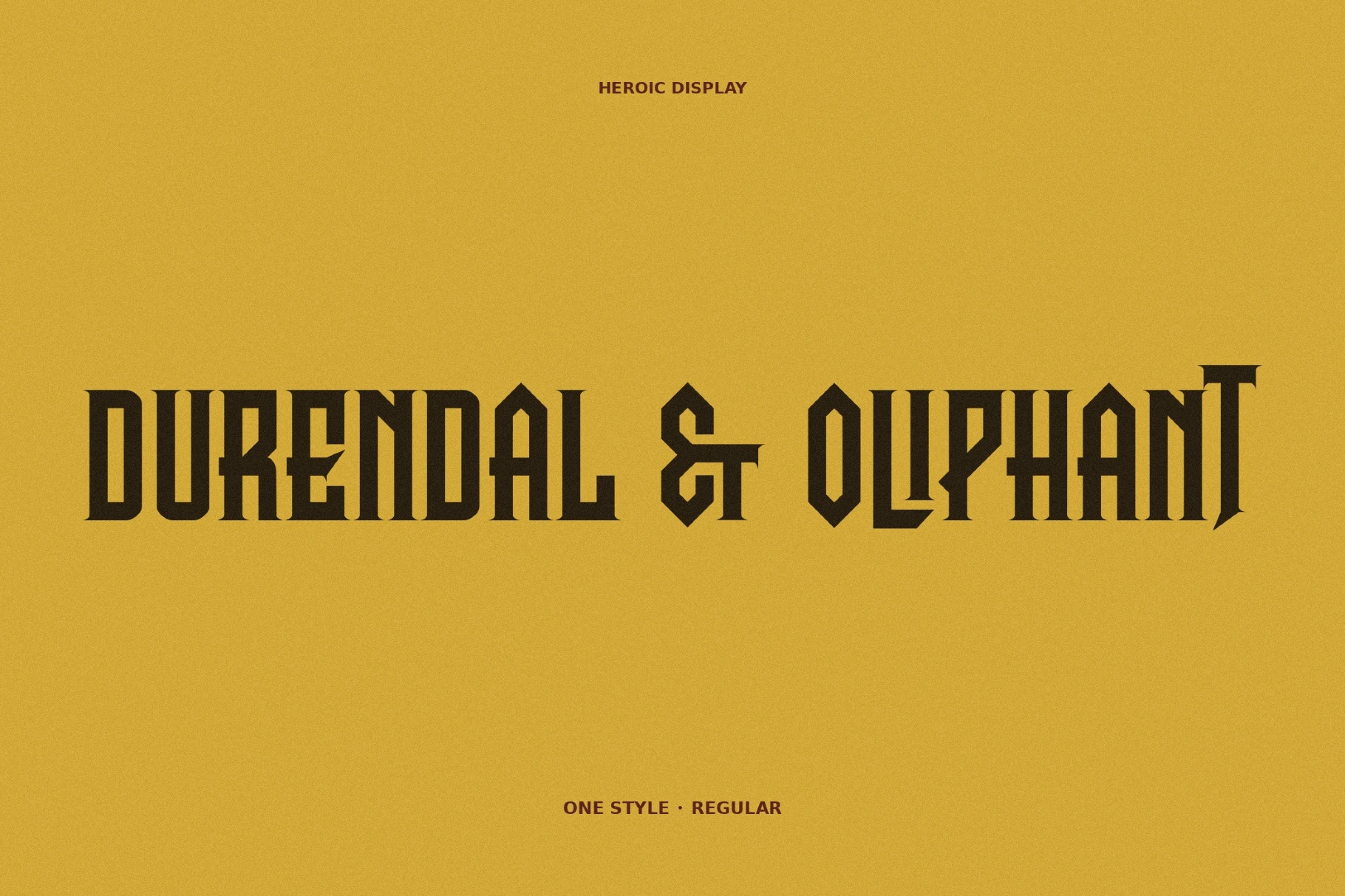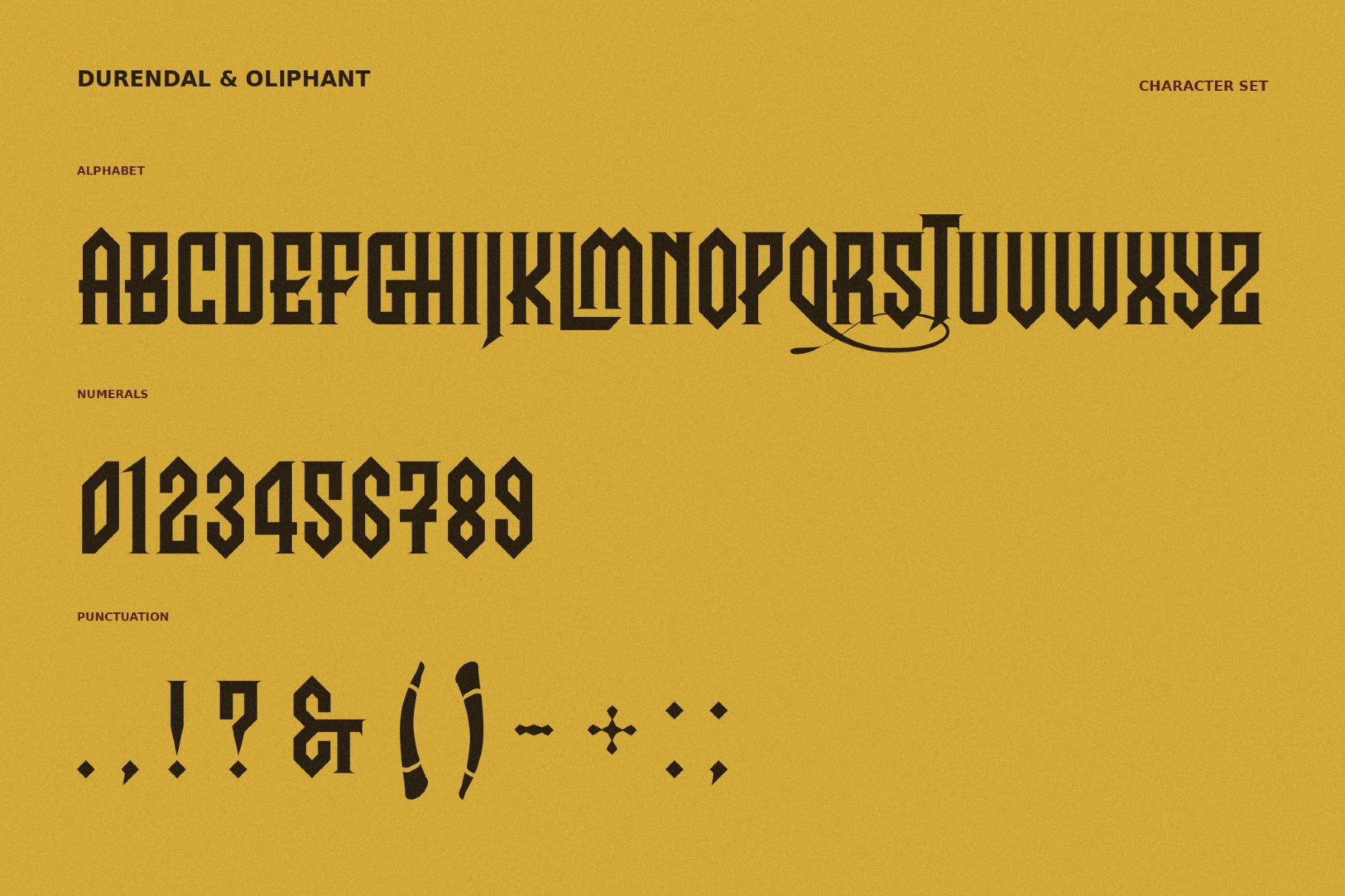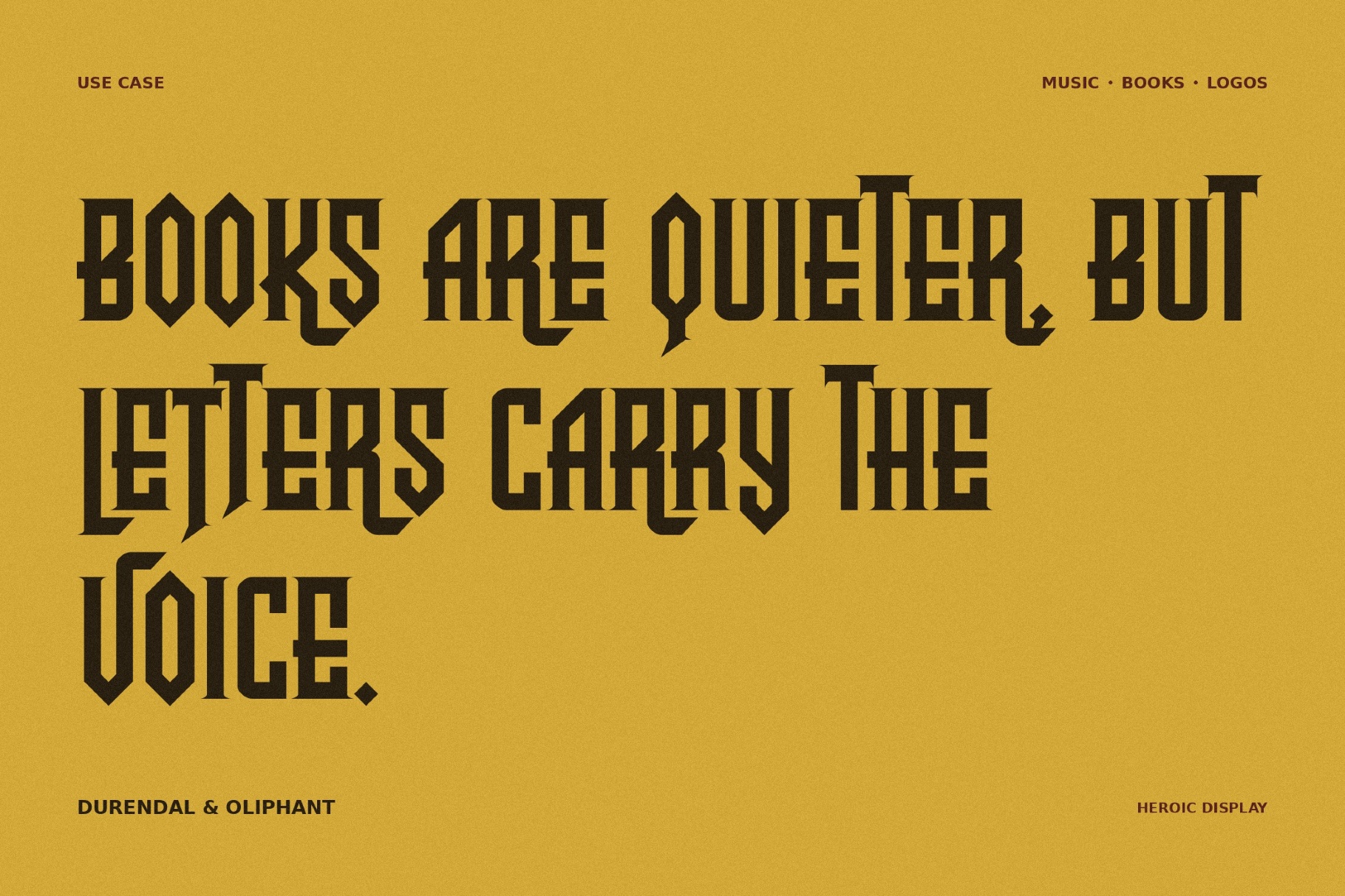
Durendal & Oliphant - Fantasy Book Font
Durendal & Oliphant is a bookish fantasy font with chivalric serif forms. It combines those with manuscript-like cuts, sharp historical detailing, and a formal rhythm rooted in Carolingian legend, crusader seals, and old ceremonial inscriptions.
You have a green light to use its noble, historic voice as you see fit: in fantasy book covers, RPG logos, museum posters, wine labels, festival graphics, heraldic branding, invitation suites, cinematic title cards, and packaging.